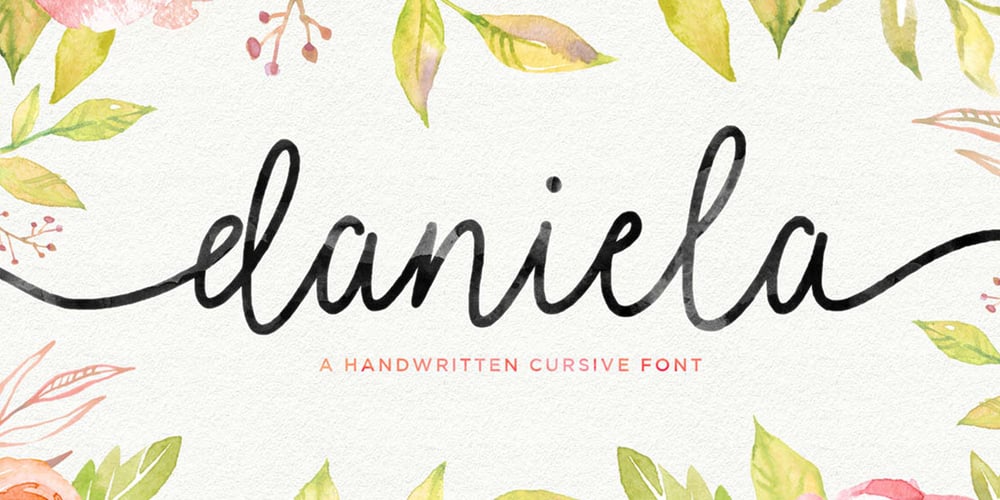
Daniela Script Font Family was designed by Seniors Studio and published by Seniors Studio. Daniela Script contains 2 styles and family package options. Daniela Script is a handwritten cursive font. It is a modern and elegant script and can be used for various purposes such as logos, wedding design projects, invitations, heading, t-shirt, letterhead, signatures, greeting card, handwriting and more. Daniela features 370+ glyphs and 184 alternate characters. including initial and terminal letters, alternates, ligatures and multiple language support. To enable the OpenType Stylistic alternates, you need a program that supports OpenType features such as Adobe Illustrator CS, Adobe Indesign & CorelDraw X6-X7, Microsoft Word 2010 or later versions. There are additional ways to access alternates/swashes, using Character Map (Windows), Nexus Font (Windows), Font Book (Mac) or a software program such as PopChar (for Windows and Mac).